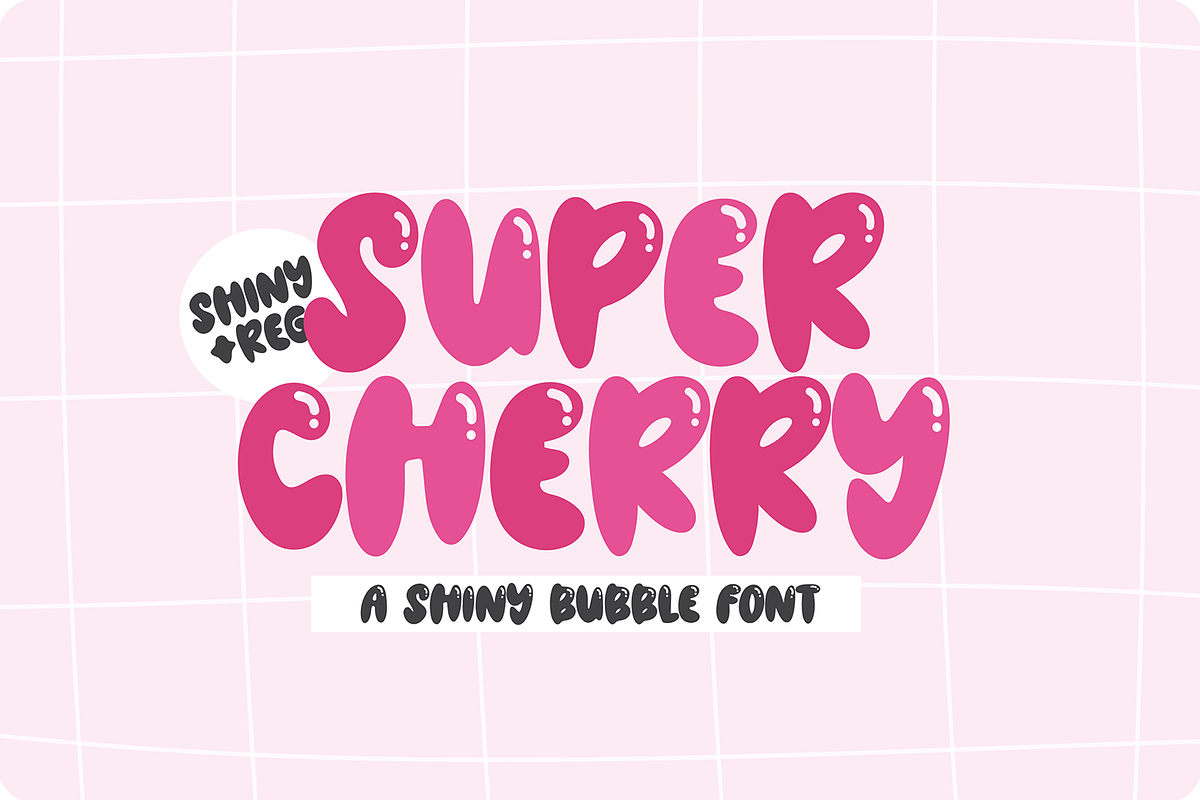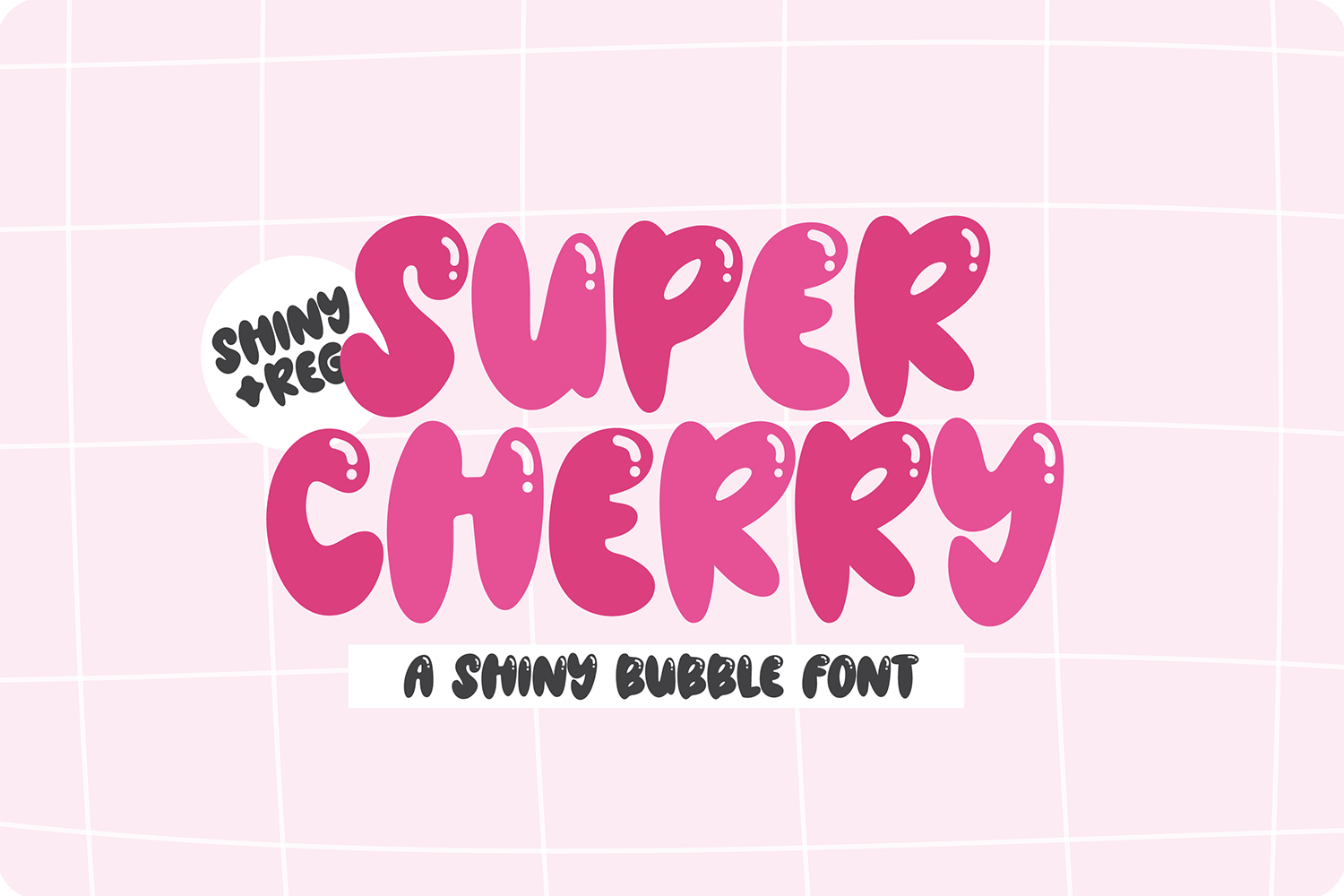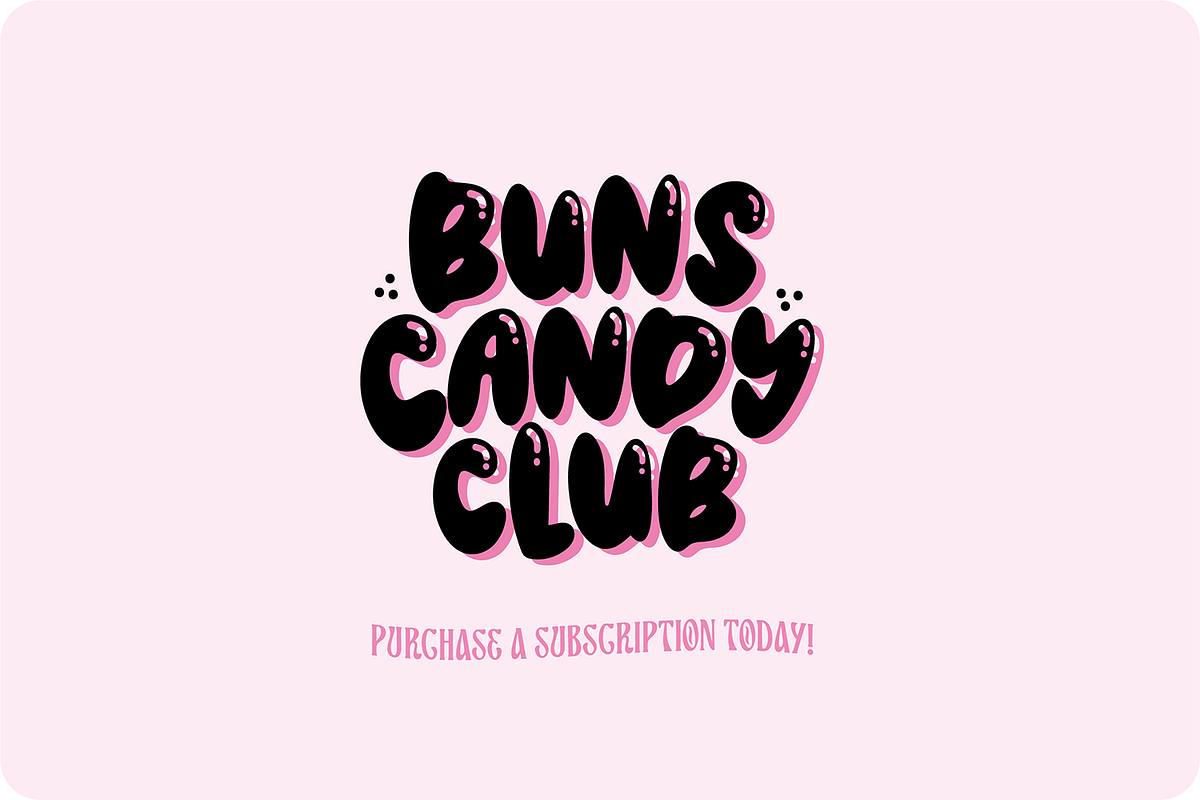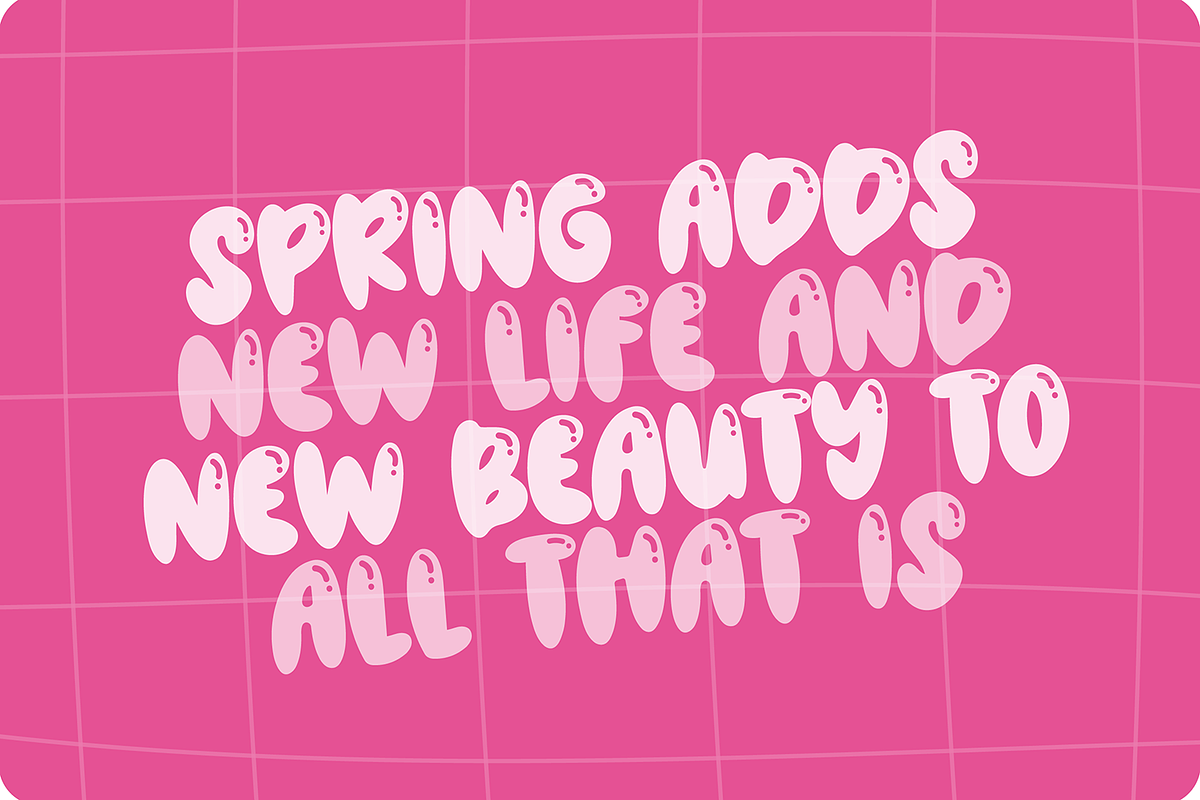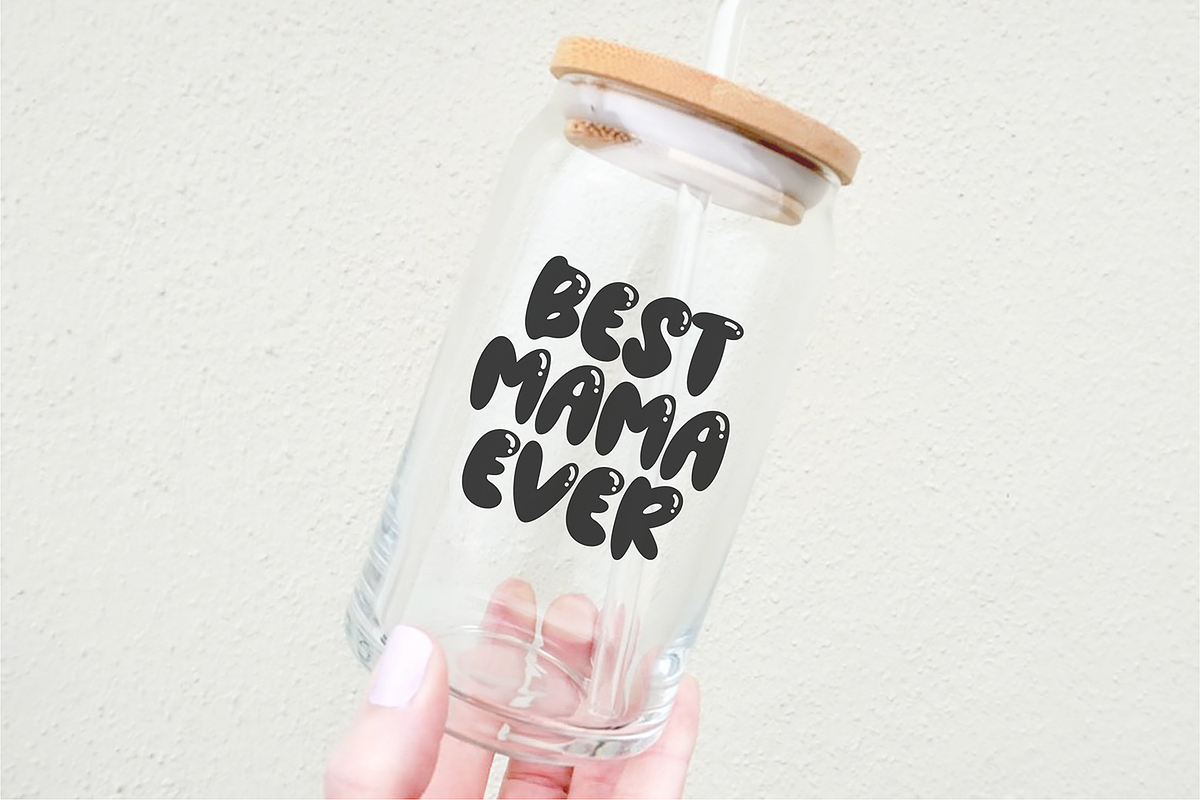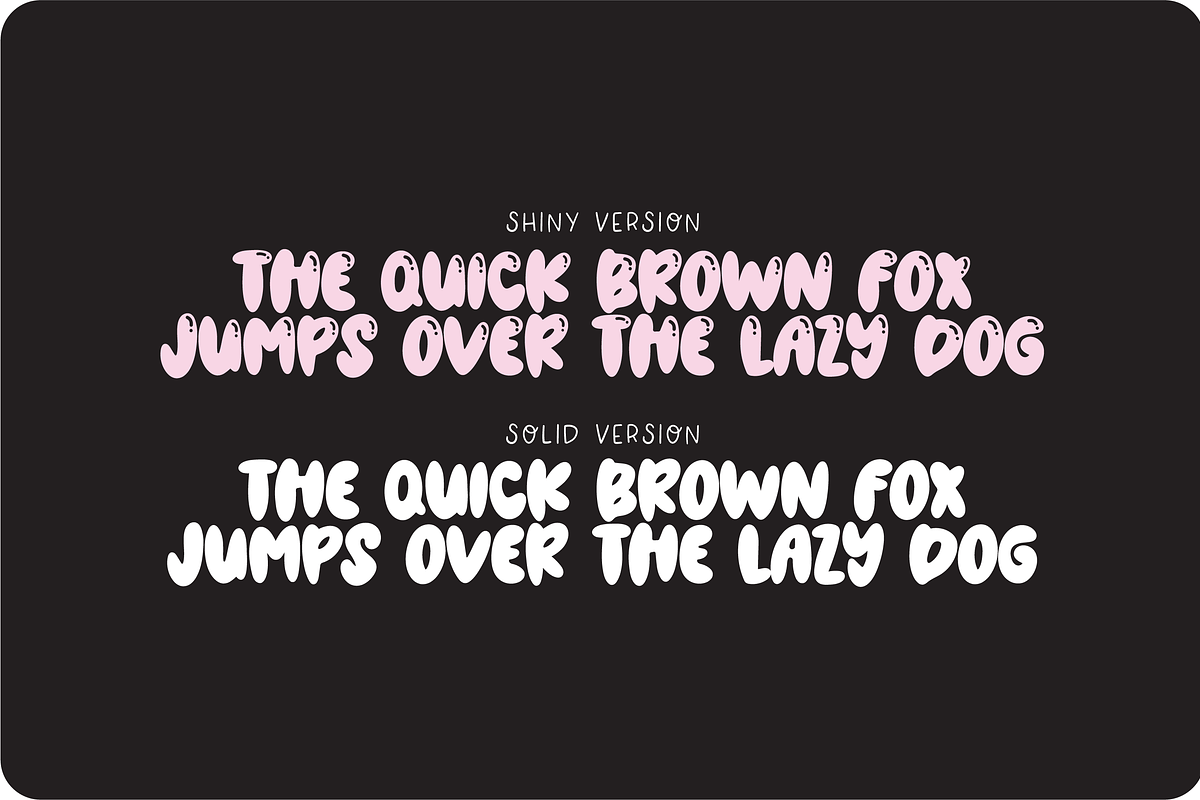
SUPER CHERRY - Shiny Bubble Font
2 versions included!
"Super Cherry" a trendy bubble font that comes in a shiny and regular version.
This font is a trendy display font that is perfect for social media or crafty projects. Use if for branding, crafts for decor, invitations, and more! All caps glyphs, numbers, and punctuation marks.